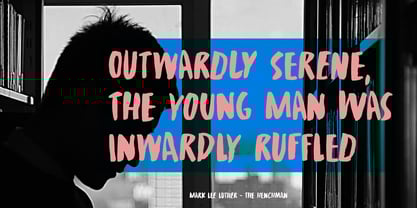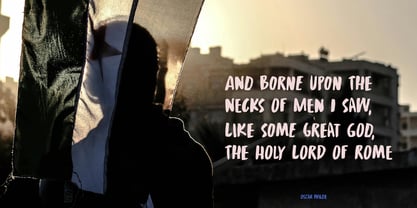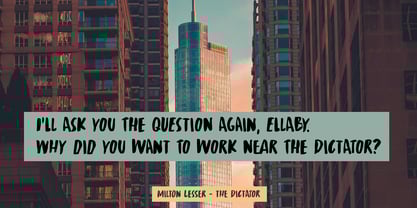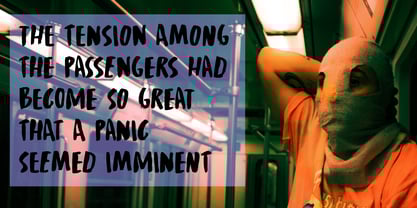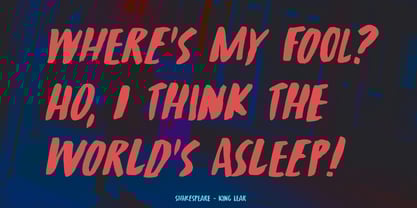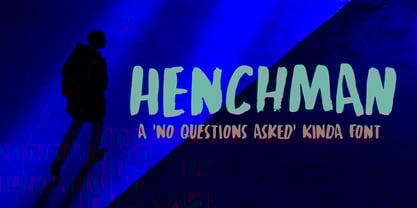
Henchman
by Hanoded
The Henchman Font Family was designed by David Kerkhoff and published by Hanoded. Henchman contains 2 styles and family package options.
My teenage son loves playing games. I know, there probably isn’t a teenager who doesn’t like playing games! One of his fav games is Fortnite, which he plays with his online friends. Now, I know nothing about gaming, but apparently there are non-player characters called henchmen that function as stormtroopers. I’m probably making a fool of myself trying to explain that which I don’t understand, so I will explain this font.
Henchman is a handmade brush font (Chinese brush and ink). It comes with extensive language support and a set of auto-rotating alternates
About Hanoded
Hanoded is run by Dutchman David Kerkhoff. His fonts are a mishmash of styles, as he just creates whatever pops into his head. You will find a lot of brush fonts in his collection, as his favourite tools are brushes and Chinese ink, with cartoon style fonts and script fonts complementing his repertoire. Aside from making fonts, David occasionally guides tours in far-flung places, renovates his '30's house and tries reasoning with his wife and (teenage) kids. Not an easy task!